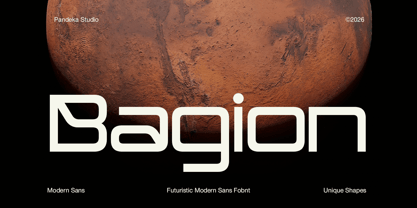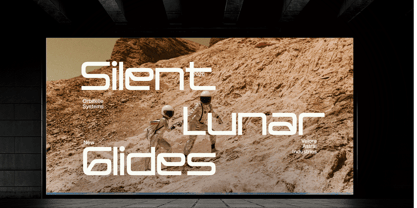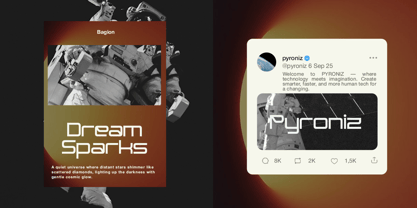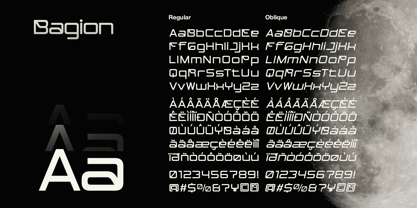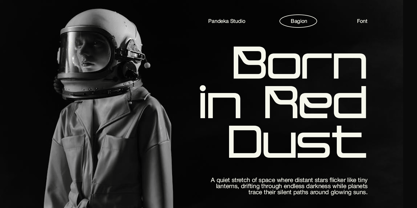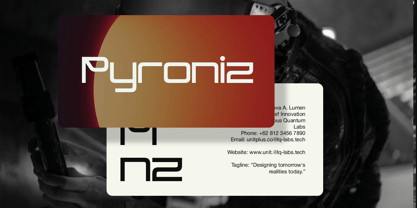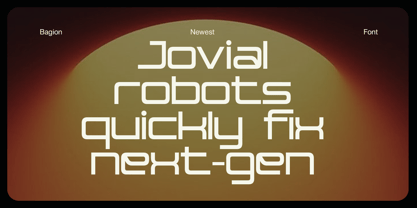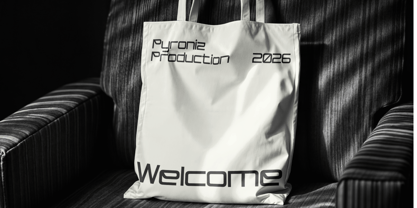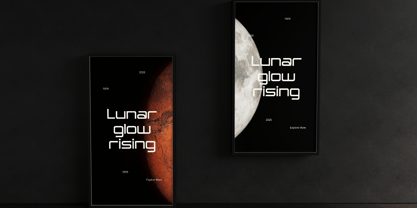
Bagion is a futuristic tech font designed with sleek curves, geometric construction, and modern sci-fi aesthetics. Its clean structure and unique letterforms create a strong digital atmosphere, making it perfect for technology branding, gaming visuals, futuristic posters, space-themed projects, and innovative UI designs. The font delivers a modern appearance while still maintaining excellent readability across both large headlines and creative layouts.
Built for creators who want a bold and forward-looking visual identity, Bagion works perfectly for logos, cinematic titles, startup branding, interface design, packaging, and experimental typography. This font comes with 2 styles: Regular & Oblique, and includes uppercase, lowercase, numerals, punctuation, and multilingual support for versatile creative use.
• 2 Style: Regular and Oblique
• Full Character Set: Uppercase, lowercase, numbers, symbols, and punctuation
Language Support:
Danish, English, Estonian, Filipino, Finnish, French, Friulian, Galician, German, Gusii, Indonesian, Irish, Italian, Luxembourgish, Norwegian Bokmål, Norwegian Nynorsk, Nyankole, Oromo, Portuguese, Romansh, Rombo, Spanish, Swedish, Swiss-German, Uzbek (Latin)